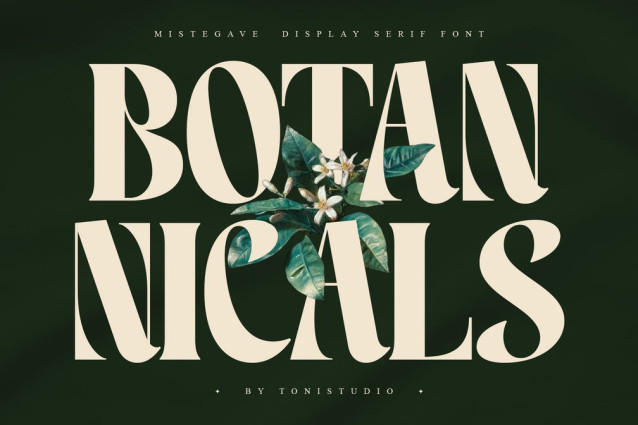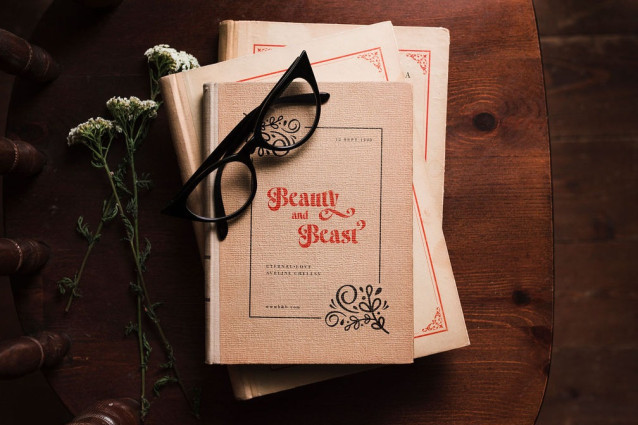
Mistegave Font
Mistegave Font is a stylish retro display serif font that combines bold elegance with a touch of vintage charm. Designed with alternates and ligatures, this typeface allows you to create unique and expressive typography for standout designs.
With uppercase and lowercase characters, complete punctuation, numbers, and multilingual support, Mistegave is versatile for both digital and print projects. Whether you’re working on logos, headlines, posters, packaging, or editorial layouts, this serif font brings a classic yet modern look to your creations.